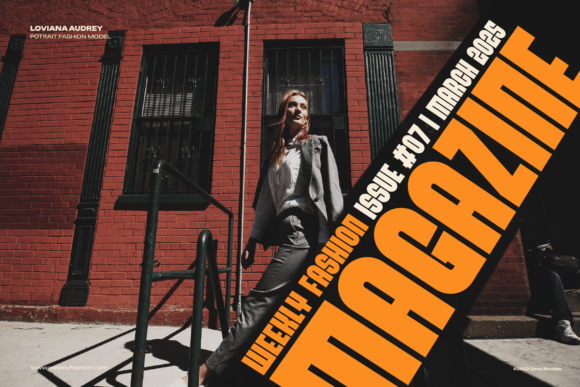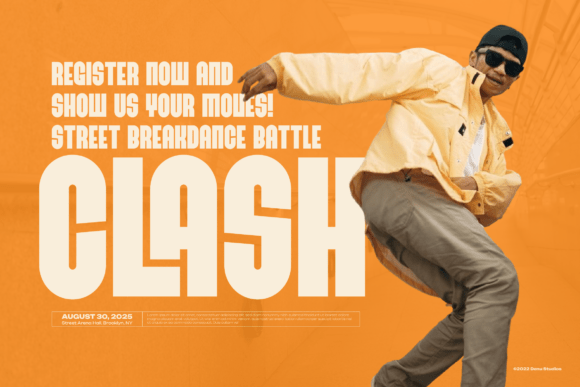
Glanuler Font
Glanuler is a bold sans serif display font that commands attention with its structured lines, futuristic curves, and high-impact letterforms. Featuring a modern aesthetic with unique ligatures and over 280 glyphs, it’s perfect for branding, editorial headlines, tech projects, and fashion-forward visuals.